Introducing your new bold statement with The Bolder Shadow Font
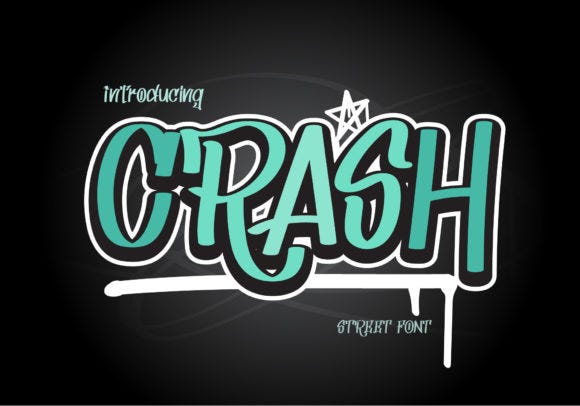
Enjoy the bold edge of “The Bolder Shadow”, a top-rated urban graffiti font perfect for music posters and streetwear. With a 5.0 rating and over 3481 favorites, elevate your designs with Urban Street Art Fonts.
Presenting Wild Lines: A Graffiti-Inspired Font for Urban Designs
Experience the bold essence of urban creativity with “Wild Lines”, a graffiti-inspired font that seamlessly fuses structure and rebellion, perfect for impactful designs. Rated 5.0, it’s a favorite among creators!
Enjoy the Doodle Line Font for Bold, Creative Designs
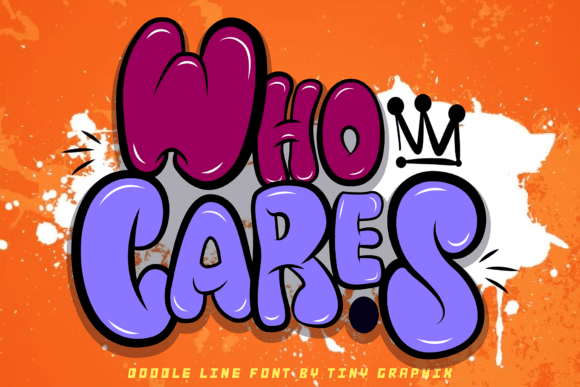
Presenting Doodle Line, a 5.0-rated graffiti font that embodies Urban Street Art Fonts. Its bold, dynamic lines make it perfect for branding, logos, and games, ensuring your designs stand out with an authentic street vibe.
Reimagine your experience with Night Guy Font by BB Type Studios
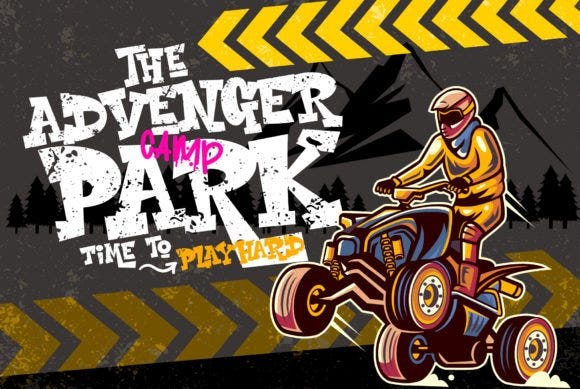
Embrace the boldness of Urban Street Art Fonts with “Night Guy,” a masterfully designed graffiti display font that elevates your creative projects. Rated 5.0 and loved by over 1945 users, it’s a true favorite!
Unlock the potential of Skylight Font for Bold Urban Designs
Reimagine your experience with Urban Street Art Fonts! Skylight is a 5.0-rated graffiti display font that adds bold, edgy flair to any design, making your projects stand out with its rebellious style.
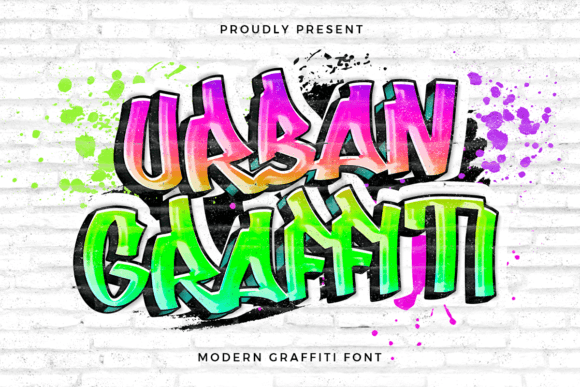
Revealing the Urban Graffiti font, a bold expression of Urban Street Art Fonts that captures street culture’s raw energy. With a 5.0 rating and over 1263 favorites, it’s perfect for impactful urban designs.
Elevate your style with Kissi Font by BB Type Studios
Embrace the urban vibe with “Kissi,” a 5.0-rated graffiti-style display font. Perfect for t-shirts, logos, and more, it embodies the essence of Urban Street Art Fonts, making your designs stand out.
Step into the future with the Floxy Font Collection by Nobu
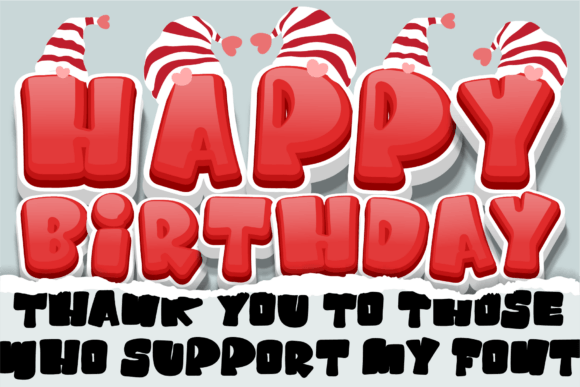
Discover the benefits of Floxy, a 5.0-rated graffiti font that infuses your designs with playful urban street art vibes. Perfect for trendy projects, it’s a must-have for creative expression.
Introducing the Badrips Font: Elevate Your Designs with Street Style
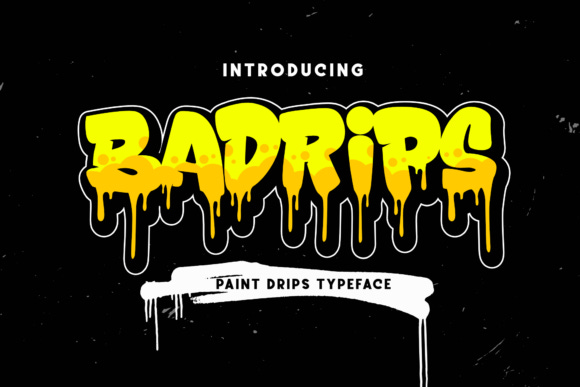
Get ready for the bold creativity of Badrips, a 5.0 rated display font inspired by graffiti art. Perfect for your Urban Street Art Fonts collection, it’s a must-have for any designer’s library.
Reimagine your experience with Notress Font for Bold Creative Designs
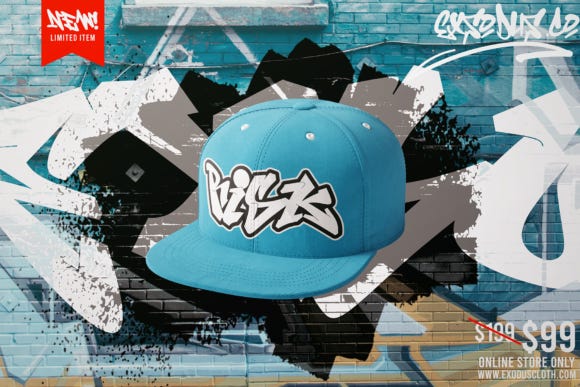
Find joy in the vibrant world of Urban Street Art Fonts with Notress, a 5.0-rated graffiti-styled display font perfect for t-shirts, logos, and more. Elevate your designs with this popular choice!
Discover the benefits of the Crash Font for Bold Designs
Welcome the bold Crash font, a 5.0 rated graffiti-style display typeface perfect for your designs. Elevate your projects with this popular choice in Urban Street Art Fonts, ideal for apparel and logos.
Say goodbye to ordinary designs with Bombing Gang Font
Embrace the boldness of Urban Street Art Fonts with “Bombing Gang,” a striking blackletter font that captures the essence of graffiti. Rated 5.0, it’s a top choice for street-art-inspired designs.
Elevate your style with Thorm Block Font for Creative Designs
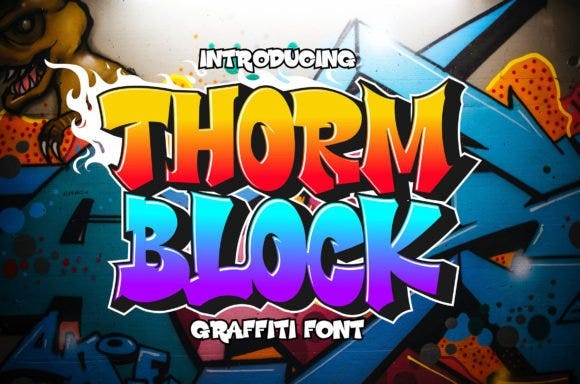
Say goodbye to ordinary designs with Thorm Block, a 5.0-rated display font that embodies Urban Street Art Fonts. Perfect for branding, apparel, and more, it brings a vibrant graffiti style to any project!
Dive into the vibrant world of graffiti-inspired fonts! Our curated collection features 15 innovative display fonts that can transform your designs and add an edge to your projects. Discover the perfect typeface to elevate your creative expression and captivate your audience.